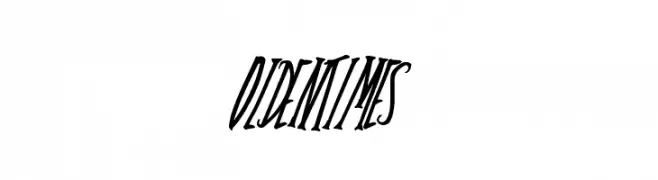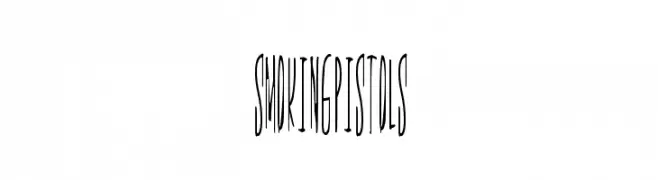
A playful, hand-drawn font with a sketch-like, artistic style.
A futuristic, geometric font with a shadow effect, ideal for tech-themed designs.
A bold, textured font with a rugged, brush-stroke appearance.
A bold, striped font with a modern and dynamic appearance.
A dynamic, slanted font with sharp, elongated strokes and a vintage calligraphic feel.
A bold, jagged font with an edgy, rebellious aesthetic.
A tall, narrow, and artistic font with a hand-drawn feel.
A bold, hand-painted style font with dynamic, uneven strokes.
A bold, dripping font with a haunting, gothic style.
A whimsical, handwritten font with elongated strokes and artistic flair.